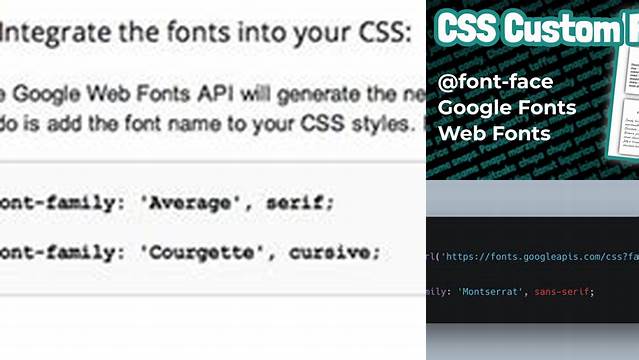
Use Google Fonts In CSS: A Step-by-Step Guide
Hey guys! Ever wondered how to jazz up your website's typography without being stuck with the same old boring fonts? Well, buckle up because we're diving deep into the world of Google Fonts and how to use them in your CSS. Trust me, it's easier than you think, and it'll make your site look like a million bucks!
1. Introduction to Google Fonts
So, what exactly are Google Fonts? Simply put, they're a massive library of free, open-source fonts that you can use on your website. Think of it as a giant candy store for typography! Using Google Fonts is a fantastic way to improve your site's aesthetics and readability without having to pay for expensive font licenses. Plus, they're super easy to implement, making them a go-to choice for developers and designers alike.
The beauty of Google Fonts lies in its simplicity and accessibility. No more hunting for the perfect font and worrying about compatibility issues. Google Fonts takes care of all the technical stuff, allowing you to focus on choosing the fonts that best represent your brand and content. Whether you're building a blog, an e-commerce site, or a portfolio, there's a Google Font out there that's perfect for you.
And the best part? They're hosted on Google's servers, which means they're optimized for fast loading times. This is crucial for maintaining a good user experience, as slow-loading fonts can significantly impact your site's performance. With Google Fonts, you get beautiful typography without sacrificing speed. It's a win-win!
2. Why Use Google Fonts?
Okay, so why should you bother with Google Fonts in the first place? Well, for starters, they can dramatically enhance your website's visual appeal. Typography plays a huge role in how users perceive your site, and using the right fonts can make your content more engaging and readable. A well-chosen font can convey your brand's personality and create a lasting impression on your visitors.
Beyond aesthetics, Google Fonts also offer practical benefits. They're designed to be web-friendly, meaning they're optimized for display on various devices and browsers. This ensures that your site looks consistent and professional, no matter how your users access it. Plus, Google Fonts are constantly updated and improved, so you can be confident that you're using the latest and greatest in typography technology.
Another compelling reason to use Google Fonts is their ease of use. With just a few lines of code, you can integrate these fonts into your website. No need to download files, install software, or worry about licensing issues. Google Fonts handles all the technical complexities, allowing you to focus on what matters most: creating great content and building a beautiful website. It's a hassle-free way to elevate your site's design and improve the overall user experience.
3. Finding the Perfect Google Font
Finding the perfect Google Font can feel like searching for a needle in a haystack, but don't worry, I've got your back! The Google Fonts website is packed with features to help you narrow down your options. You can filter fonts by category (serif, sans-serif, display, handwriting, monospace), language, and even number of styles. This makes it easy to find fonts that match your specific needs and preferences.
One of the best ways to find the right font is to experiment with different combinations. Try pairing a bold header font with a more subdued body font to create visual contrast. Or, use a handwriting font for headings to add a personal touch to your site. The possibilities are endless, so don't be afraid to get creative and try new things.
Another helpful tip is to consider your target audience. What kind of impression do you want to make? A serious and professional font might be perfect for a business website, while a playful and whimsical font might be better suited for a children's blog. Think about the message you want to convey and choose fonts that align with your brand's personality.
4. Adding Google Fonts to Your Website
Alright, let's get down to the nitty-gritty: how do you actually add Google Fonts to your website? There are a few different ways to do it, but the most common method is to use the Google Fonts API. This involves adding a simple <link> tag to your HTML file, which tells the browser to load the font from Google's servers. It's quick, easy, and doesn't require any special coding skills.
To get started, head over to the Google Fonts website and choose the font you want to use. Once you've selected your font, click the "Select this style" button next to each style you want to include (e.g., regular, bold, italic). Then, click the "View selected families" button in the top right corner of the screen. This will take you to a page where you can see the code you need to add to your HTML file.
Copy the <link> tag provided by Google and paste it into the <head> section of your HTML file. Make sure to place it before your main CSS stylesheet. This ensures that the font is loaded before your styles are applied. Once you've done that, you can start using the font in your CSS by specifying its name in the font-family property. It's that simple!
5. Using the <link> Tag
As mentioned earlier, the <link> tag is the most common way to add Google Fonts to your website. This method involves adding a line of code to the <head> section of your HTML file, which tells the browser to load the font from Google's servers. The <link> tag is a simple and effective way to include external resources in your HTML document, and it's the recommended approach for using Google Fonts.
The <link> tag typically looks something like this:
<link rel="stylesheet" href="https://fonts.googleapis.com/css2?family=Open+Sans:wght@400;700&display=swap">
In this example, we're loading the "Open Sans" font with two different weights: 400 (regular) and 700 (bold). The display=swap parameter tells the browser to display the text using a fallback font until the Google Font is loaded. This helps prevent the "flash of unstyled text" (FOUT) and improves the user experience.
To use the font in your CSS, you would specify its name in the font-family property:
body {
font-family: 'Open Sans', sans-serif;
}
h1 {
font-family: 'Open Sans', sans-serif;
font-weight: 700;
}
This tells the browser to use the "Open Sans" font for the body text and the <h1> headings. If the font is not available for some reason, the browser will fall back to the generic sans-serif font.
6. Using the @import Rule
Another way to add Google Fonts to your website is by using the @import rule in your CSS file. This method involves adding a line of code to your CSS file that tells the browser to load the font from Google's servers. The @import rule is a convenient way to include external stylesheets in your CSS file, and it can be used to load Google Fonts as well.
To use the @import rule, you would add the following line of code to the top of your CSS file:
@import url('https://fonts.googleapis.com/css2?family=Open+Sans:wght@400;700&display=swap');
This code tells the browser to load the "Open Sans" font with two different weights: 400 (regular) and 700 (bold). The display=swap parameter has the same effect as in the <link> tag method.
Once you've added the @import rule to your CSS file, you can start using the font in your CSS as usual:
body {
font-family: 'Open Sans', sans-serif;
}
h1 {
font-family: 'Open Sans', sans-serif;
font-weight: 700;
}
While the @import rule is convenient, it's generally recommended to use the <link> tag method instead. This is because the @import rule can slow down your site's loading time, as it blocks the rendering of the page until the external stylesheet is loaded. The <link> tag, on the other hand, allows the browser to load the stylesheet in parallel, which can improve performance.
7. Specifying Font Weights and Styles
When using Google Fonts, it's important to specify the font weights and styles you want to use. Font weight refers to the thickness of the font (e.g., regular, bold, extra-bold), while font style refers to the appearance of the font (e.g., normal, italic, oblique). By specifying these properties, you can control how the font is displayed on your website and create a more consistent and visually appealing design.
To specify the font weight, you can use the font-weight property in your CSS:
h1 {
font-family: 'Open Sans', sans-serif;
font-weight: 700; /* Bold */
}
p {
font-family: 'Open Sans', sans-serif;
font-weight: 400; /* Regular */
}
In this example, we're setting the font weight of the <h1> headings to 700 (bold) and the font weight of the <p> paragraphs to 400 (regular). The available font weights depend on the font you're using, but common values include 100 (thin), 200 (extra-light), 300 (light), 400 (regular), 500 (medium), 600 (semi-bold), 700 (bold), 800 (extra-bold), and 900 (black).
To specify the font style, you can use the font-style property in your CSS:
i {
font-family: 'Open Sans', sans-serif;
font-style: italic;
}
This tells the browser to display the <i> elements in italics. The available font styles are typically normal, italic, and oblique.
8. Using Font Display Property
The font-display property is a CSS property that controls how the browser handles the loading of web fonts. It allows you to specify how the text should be displayed while the font is loading, which can improve the user experience and prevent the "flash of unstyled text" (FOUT). The font-display property has several possible values, each with its own behavior:
auto: This is the default value, and it tells the browser to use its default font loading behavior. In most cases, this means that the browser will display the text using a fallback font until the web font is loaded.block: This value tells the browser to hide the text until the web font is loaded. This can prevent the FOUT, but it can also lead to a "flash of invisible text" (FOIT) if the font takes a long time to load.swap: This value tells the browser to display the text using a fallback font until the web font is loaded, and then swap to the web font when it's available. This is the most commonly used value, as it provides a good balance between preventing the FOUT and avoiding the FOIT.fallback: This value tells the browser to display the text using a fallback font for a short period of time, and then swap to the web font if it's loaded within that time. If the font is not loaded within the specified time, the browser will continue to display the text using the fallback font.optional: This value tells the browser to use the web font if it's available and doesn't cause a delay in rendering the page. If the font is not available or causes a delay, the browser will use a fallback font.
To use the font-display property, you can add it to your @font-face rule in your CSS:
@font-face {
font-family: 'Open Sans';
src: url('https://fonts.googleapis.com/css2?family=Open+Sans:wght@400;700&display=swap');
font-display: swap;
}
In this example, we're setting the font-display property to swap, which tells the browser to display the text using a fallback font until the "Open Sans" font is loaded.
9. Optimizing Google Fonts for Performance
While Google Fonts are generally optimized for performance, there are a few things you can do to further improve your site's loading time. One of the most important things is to only load the font weights and styles that you actually need. Loading unnecessary font files can significantly increase your site's page size and slow down its loading time.
To avoid loading unnecessary font files, make sure to only select the font weights and styles you want to use when you're choosing your fonts on the Google Fonts website. For example, if you only need the regular and bold weights of a font, don't select the italic or extra-bold weights. This will reduce the size of the font file and improve your site's performance.
Another way to optimize Google Fonts for performance is to use the preconnect and dns-prefetch resource hints. These hints tell the browser to establish a connection to the Google Fonts server early in the loading process, which can reduce the time it takes to load the font files.
To use these hints, you can add the following lines of code to the <head> section of your HTML file:
<link rel="preconnect" href="https://fonts.googleapis.com">
<link rel="dns-prefetch" href="https://fonts.gstatic.com" crossorigin>
These hints tell the browser to connect to the Google Fonts server and resolve the DNS for the fonts.gstatic.com domain, which is where the font files are hosted.
10. Self-Hosting Google Fonts
While using Google Fonts directly from Google's servers is convenient, it's not always the best option for performance and privacy. Self-hosting Google Fonts involves downloading the font files and hosting them on your own server. This gives you more control over how the fonts are loaded and can improve your site's loading time.
To self-host Google Fonts, you first need to download the font files from the Google Fonts website. You can do this by using a tool like google-webfonts-helper, which allows you to select the font weights and styles you want to download and generates the necessary CSS code.
Once you've downloaded the font files, you need to upload them to your server. It's a good idea to create a separate folder for your fonts, such as /fonts/, and upload the font files to that folder.
Next, you need to update your CSS to point to the local font files instead of the Google Fonts server. This involves using the @font-face rule to define the font and specify the path to the font files:
@font-face {
font-family: 'Open Sans';
src: url('/fonts/OpenSans-Regular.woff2') format('woff2'),
url('/fonts/OpenSans-Regular.woff') format('woff');
font-weight: 400;
font-style: normal;
}
@font-face {
font-family: 'Open Sans';
src: url('/fonts/OpenSans-Bold.woff2') format('woff2'),
url('/fonts/OpenSans-Bold.woff') format('woff');
font-weight: 700;
font-style: normal;
}
In this example, we're defining two font faces for the "Open Sans" font: one for the regular weight and one for the bold weight. We're also specifying the path to the font files using the url() function. The format() function tells the browser the format of the font file (e.g., woff2, woff).
11. Troubleshooting Google Fonts Issues
Sometimes, you might encounter issues when using Google Fonts on your website. Here are a few common problems and how to fix them:
- Font not loading: If the font is not loading, make sure that you've added the
<link>tag or@importrule correctly to your HTML or CSS file. Also, check that the URL to the font file is correct and that the font file is accessible. - Flash of unstyled text (FOUT): If you're seeing a FOUT, try using the
font-displayproperty to control how the browser handles the loading of the font. Setting thefont-displayproperty toswapis usually the best option. - Font rendering incorrectly: If the font is rendering incorrectly, make sure that you've specified the correct font weights and styles in your CSS. Also, check that the font is compatible with the browser you're using.
- Slow loading time: If the font is taking a long time to load, try optimizing the font for performance by only loading the font weights and styles you need, using the
preconnectanddns-prefetchresource hints, or self-hosting the font.
If you're still having trouble with Google Fonts, try searching online for solutions or asking for help in a web development forum.
12. Combining Google Fonts with Other Fonts
Google Fonts are great, but sometimes you might want to combine them with other fonts to create a unique and interesting typography. You can easily combine Google Fonts with system fonts (fonts that are installed on the user's computer) or with other web fonts.
To combine Google Fonts with system fonts, simply specify the system font as a fallback in your font-family property:
body {
font-family: 'Open Sans', sans-serif;
}
In this example, we're telling the browser to use the "Open Sans" font if it's available, and to fall back to the generic sans-serif font if it's not. The sans-serif font is a system font that is available on most computers.
To combine Google Fonts with other web fonts, you can use the @font-face rule to define the other web fonts and then specify them in your font-family property:
@font-face {
font-family: 'My Custom Font';
src: url('/fonts/MyCustomFont.woff2') format('woff2'),
url('/fonts/MyCustomFont.woff') format('woff');
}
body {
font-family: 'Open Sans', 'My Custom Font', sans-serif;
}
In this example, we're defining a custom font called "My Custom Font" and then specifying it as a fallback in the font-family property. This tells the browser to use the "Open Sans" font if it's available, then the "My Custom Font" if it's available, and finally to fall back to the generic sans-serif font if neither of the other fonts are available.
13. Using Google Fonts in WordPress
If you're using WordPress, there are several ways to use Google Fonts on your website. One option is to use a plugin like Easy Google Fonts, which allows you to easily select and apply Google Fonts to your theme without having to write any code.
Another option is to manually add the <link> tag or @import rule to your theme's header file. This requires a bit more technical knowledge, but it gives you more control over how the fonts are loaded.
To manually add Google Fonts to your WordPress theme, you can edit the header.php file in your theme's directory. This file contains the <head> section of your website, where you can add the <link> tag or @import rule.
Before editing your theme's files, it's a good idea to create a backup of your theme in case something goes wrong. You can also use a child theme to make changes to your theme without affecting the original theme files.
Once you've added the <link> tag or @import rule to your theme's header file, you can start using the font in your theme's CSS. You can edit your theme's CSS file using the WordPress theme customizer or by editing the style.css file in your theme's directory.
14. Google Fonts and SEO
Using Google Fonts can have a positive impact on your website's SEO. By using well-chosen fonts, you can improve your site's readability and user experience, which can lead to higher engagement and lower bounce rates. These factors can signal to Google that your website is valuable and relevant, which can improve your search engine rankings.
However, it's important to optimize your Google Fonts for performance, as slow loading times can negatively impact your SEO. Make sure to only load the font weights and styles you need, use the preconnect and dns-prefetch resource hints, or self-host the font to improve your site's loading time.
In addition, make sure that your website is mobile-friendly and responsive, as Google prioritizes mobile-friendly websites in its search results. Using Google Fonts can help you create a more visually appealing and user-friendly mobile experience, which can improve your SEO.
15. Google Fonts and Accessibility
When using Google Fonts, it's important to consider accessibility to ensure that your website is usable by people with disabilities. Here are a few tips for making your Google Fonts accessible:
- Choose fonts with good readability: Select fonts that are easy to read, even for people with visual impairments. Avoid using fonts that are too thin, too decorative, or too small.
- Use sufficient contrast: Make sure that there is enough contrast between the text and the background color. This will make it easier for people with low vision to read the text.
- Provide alternative text: For images that contain text, provide alternative text that describes the content of the image. This will allow people who are using screen readers to understand the content of the image.
- Use semantic HTML: Use semantic HTML elements to structure your content. This will make it easier for screen readers to understand the structure of your website.
By following these tips, you can ensure that your Google Fonts are accessible to everyone, regardless of their abilities.
16. Best Practices for Using Google Fonts
To make the most of Google Fonts, follow these best practices:
- Choose fonts that match your brand: Select fonts that align with your brand's personality and style.
- Use a limited number of fonts: Avoid using too many different fonts on your website, as this can make your site look cluttered and unprofessional.
- Optimize for performance: Only load the font weights and styles you need, use the
preconnectanddns-prefetchresource hints, or self-host the font to improve your site's loading time. - Consider accessibility: Choose fonts with good readability and use sufficient contrast to ensure that your website is usable by people with disabilities.
- Test your fonts: Test your fonts on different devices and browsers to make sure that they look good and render correctly.
17. Google Fonts API
The Google Fonts API is a web service that allows you to easily access and use Google Fonts on your website. The API provides a simple and efficient way to load fonts from Google's servers without having to download and host the font files yourself.
To use the Google Fonts API, you simply add a <link> tag to your HTML file that points to the API endpoint. The <link> tag specifies the fonts you want to use and the character sets you want to include.
The Google Fonts API supports a variety of parameters that allow you to customize the font loading process. For example, you can specify the font weights and styles you want to load, the character sets you want to include, and the font display strategy you want to use.
The Google Fonts API is a powerful and flexible tool that can help you improve your website's typography and user experience.
18. Google Fonts Alternatives
While Google Fonts are a great option for adding fonts to your website, there are also several alternatives you can consider. Here are a few popular alternatives:
- Adobe Fonts: Adobe Fonts (formerly Typekit) is a subscription-based service that offers a wide variety of high-quality fonts. Adobe Fonts integrates seamlessly with Adobe Creative Cloud, making it a great option for designers who use Adobe products.
- Font Squirrel: Font Squirrel is a website that offers a variety of free, high-quality fonts. Font Squirrel fonts are licensed for commercial use and can be downloaded and self-hosted on your server.
- MyFonts: MyFonts is a website that offers a wide variety of commercial fonts. MyFonts has a large selection of fonts from independent foundries and type designers.
- Fonts.com: Fonts.com is a website that offers a wide variety of commercial fonts. Fonts.com is a good option for businesses that need a large selection of fonts for branding and marketing purposes.
19. Using Google Fonts Offline
While Google Fonts are typically used online, you can also use them offline by downloading the font files and hosting them on your own server. This can be useful if you need to use the fonts in a local development environment or if you want to ensure that your website will continue to work even if Google's servers are unavailable.
To use Google Fonts offline, you first need to download the font files from the Google Fonts website. You can do this by using a tool like google-webfonts-helper, which allows you to select the font weights and styles you want to download and generates the necessary CSS code.
Once you've downloaded the font files, you need to upload them to your server. It's a good idea to create a separate folder for your fonts, such as /fonts/, and upload the font files to that folder.
Next, you need to update your CSS to point to the local font files instead of the Google Fonts server. This involves using the @font-face rule to define the font and specify the path to the font files.
20. Google Fonts and Email Design
Using Google Fonts in email design can be tricky, as not all email clients support web fonts. However, there are a few techniques you can use to improve the chances that your fonts will render correctly in email clients.
One technique is to use the @import rule to load the fonts in your email's <style> tag. This is the most widely supported method for using web fonts in email.
Another technique is to use the <link> tag to load the fonts in your email's <head> section. This method is supported by some email clients, but not all.
It's also important to use fallback fonts in your email design. Fallback fonts are fonts that are similar to your web fonts and that are more likely to be supported by email clients. You can specify fallback fonts in your CSS using the font-family property.
21. The Future of Google Fonts
The future of Google Fonts looks bright, with Google continuing to invest in and improve the service. Google is constantly adding new fonts to the library and improving the performance and accessibility of the existing fonts.
One area of focus for Google is variable fonts. Variable fonts are a new type of font that allows you to control a variety of font properties, such as weight, width, and slant, using a single font file. This can significantly reduce the size of your font files and improve your website's performance.
Google is also working on improving the accessibility of Google Fonts, making it easier for people with disabilities to use and access the fonts.
22. Advanced CSS Techniques with Google Fonts
Google Fonts are incredibly versatile, and you can use them with advanced CSS techniques to create stunning typography effects. Here are a few examples:
- Text shadows: Use the
text-shadowproperty to add shadows to your text and create a 3D effect. - Gradients: Use the
linear-gradient()orradial-gradient()functions to add gradients to your text and create a colorful effect. - Clipping: Use the
clip-pathproperty to clip your text into different shapes and create unique designs. - Animations: Use CSS animations to animate your text and create engaging and interactive experiences.
23. Using Google Fonts with JavaScript
You can use JavaScript to dynamically load and manipulate Google Fonts on your website. This can be useful if you want to change the font based on user interactions or if you want to create custom typography effects.
To use JavaScript with Google Fonts, you can use the WebFontLoader library, which provides a simple and efficient way to load and manage web fonts. The WebFontLoader library allows you to specify the fonts you want to load, the events you want to listen for, and the callbacks you want to execute when the fonts are loaded.
24. Google Fonts and Branding
Google Fonts can play a significant role in your branding. By choosing fonts that align with your brand's personality and style, you can create a consistent and memorable visual identity. Your fonts should reflect your brand's values and resonate with your target audience.
When choosing fonts for your branding, consider the following factors:
- Readability: Choose fonts that are easy to read and that will look good on different devices and screen sizes.
- Personality: Choose fonts that reflect your brand's personality and style.
- Versatility: Choose fonts that are versatile and that can be used in a variety of contexts.
25. Google Fonts and Responsive Design
When using Google Fonts in responsive design, it's important to ensure that your fonts look good on different devices and screen sizes. Here are a few tips for making your Google Fonts responsive:
- Use relative font sizes: Use relative font sizes, such as
emorrem, instead of absolute font sizes, such aspx. This will allow your fonts to scale proportionally on different devices. - Use media queries: Use media queries to adjust the font sizes and styles based on the screen size.
- Test your fonts on different devices: Test your fonts on different devices and screen sizes to make sure that they look good and render correctly.
26. Google Fonts and Color Theory
Google Fonts can be combined with color theory to create visually appealing and harmonious designs. Color theory is the study of how colors interact with each other and how they affect human perception.
When choosing colors for your website, consider the following factors:
- Contrast: Use sufficient contrast between the text and the background color to ensure that the text is easy to read.
- Harmony: Choose colors that harmonize with each other and that create a visually pleasing effect.
- Meaning: Choose colors that convey the right message and that align with your brand's personality.
27. Google Fonts and Typography Hierarchy
Typography hierarchy is the organization of text on a page to guide the reader's eye and to emphasize important information. When using Google Fonts, it's important to create a clear and effective typography hierarchy.
Here are a few tips for creating a typography hierarchy:
- Use different font sizes: Use different font sizes to distinguish between headings, subheadings, and body text.
- Use different font weights: Use different font weights to emphasize important information.
- Use different font styles: Use different font styles, such as italic or bold, to highlight key phrases or words.
28. Licensing of Google Fonts
All Google Fonts are licensed under the SIL Open Font License (OFL). This license allows you to use the fonts for any purpose, including commercial projects, without having to pay any fees. You can also modify and redistribute the fonts, as long as you retain the original copyright notice and the OFL license text.
The OFL license is a permissive license that gives you a lot of freedom to use the fonts as you see fit. However, it's important to read the license carefully to understand your rights and obligations.
29. Popular Google Font Pairings
Choosing the right Google Fonts can be tough, so here are a few popular font pairings to get you started:
- Open Sans & Montserrat: A classic combination, Open Sans provides readability while Montserrat adds a modern touch.
- Roboto & Roboto Slab: Roboto offers a clean, modern feel paired with the slightly more traditional Roboto Slab.
- Lato & Merriweather: Lato is a sleek sans-serif that complements the readability of Merriweather.
- Oswald & Lora: Oswald offers a strong headline option, balanced by the elegant Lora for body text.
30. Monitoring Google Fonts Performance
It's crucial to monitor the performance impact of Google Fonts on your website. Use tools like Google PageSpeed Insights or WebPageTest to analyze your site's loading times and identify any potential bottlenecks. Regularly checking performance helps you ensure that your font choices aren't negatively impacting user experience.
Look for metrics like First Contentful Paint (FCP) and Largest Contentful Paint (LCP) to understand how fonts are affecting the initial rendering of your page. If you notice slow loading times, consider optimizing your font loading strategy or switching to more lightweight font options.
So there you have it! A comprehensive guide on how to use Google Web Fonts in CSS. Go forth and create beautiful, readable, and engaging websites!